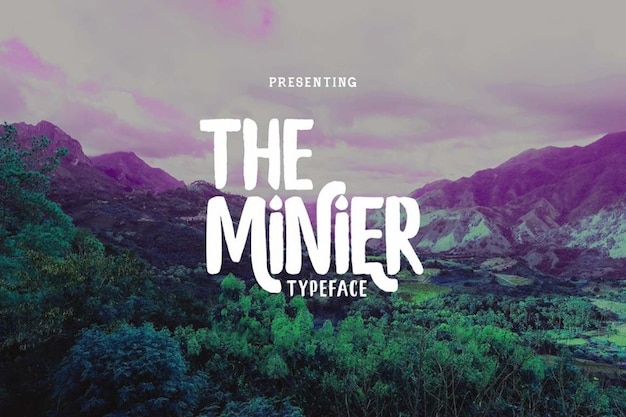
The Minier Font
The Minier font is a delightful fusion of simplicity and decorative finesse, as if each letter were brushed onto the canvas of your text. It's the perfect choice when you want to add a touch of artistic charm without overwhelming your design. The Minier font effortlessly blends the elegance of simplicity with decorative style, making your words a visual treat that's both approachable and delightful.